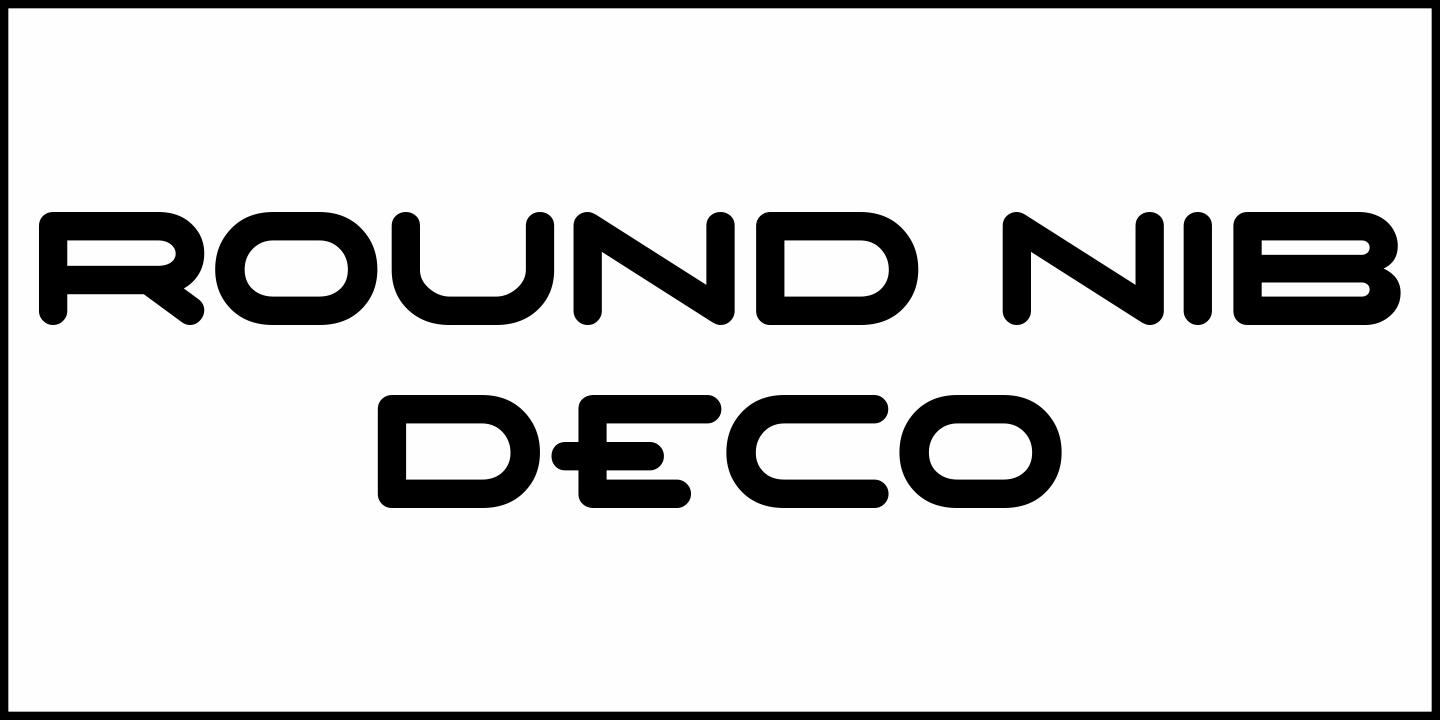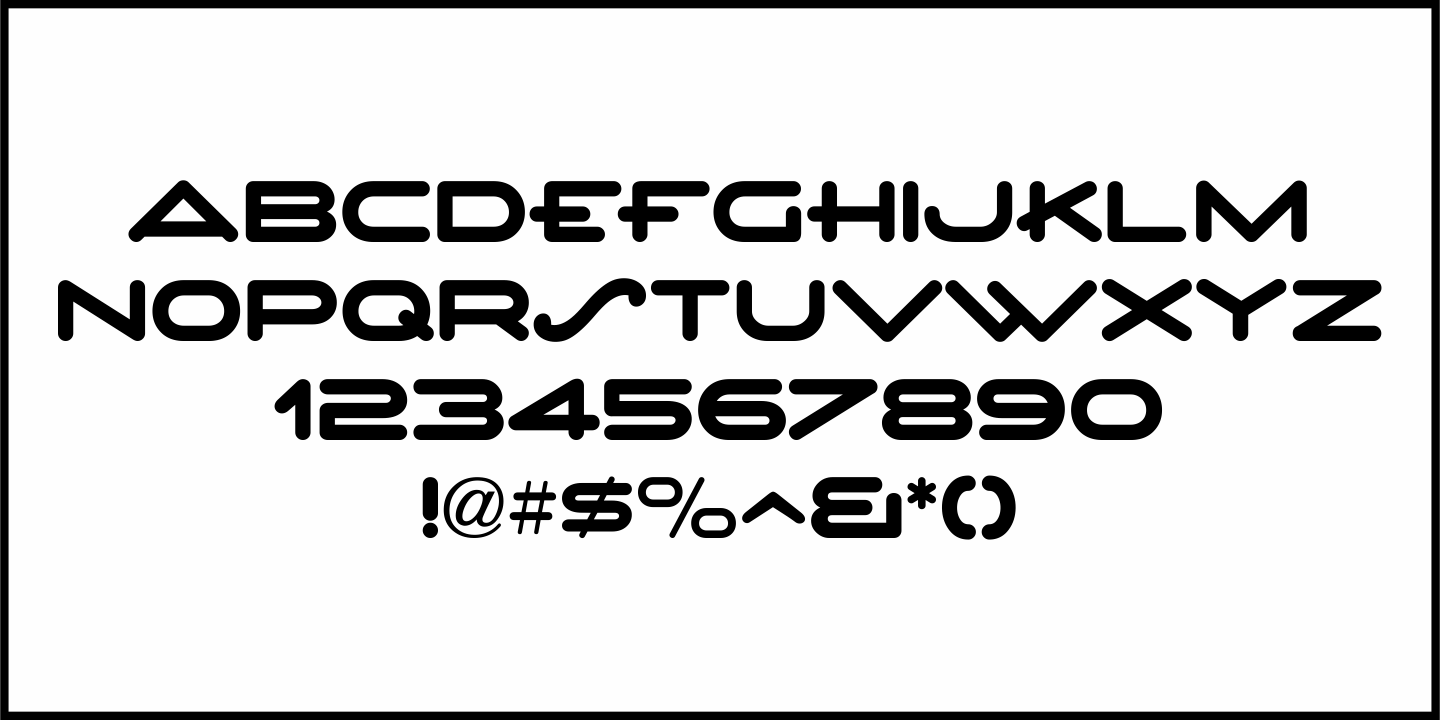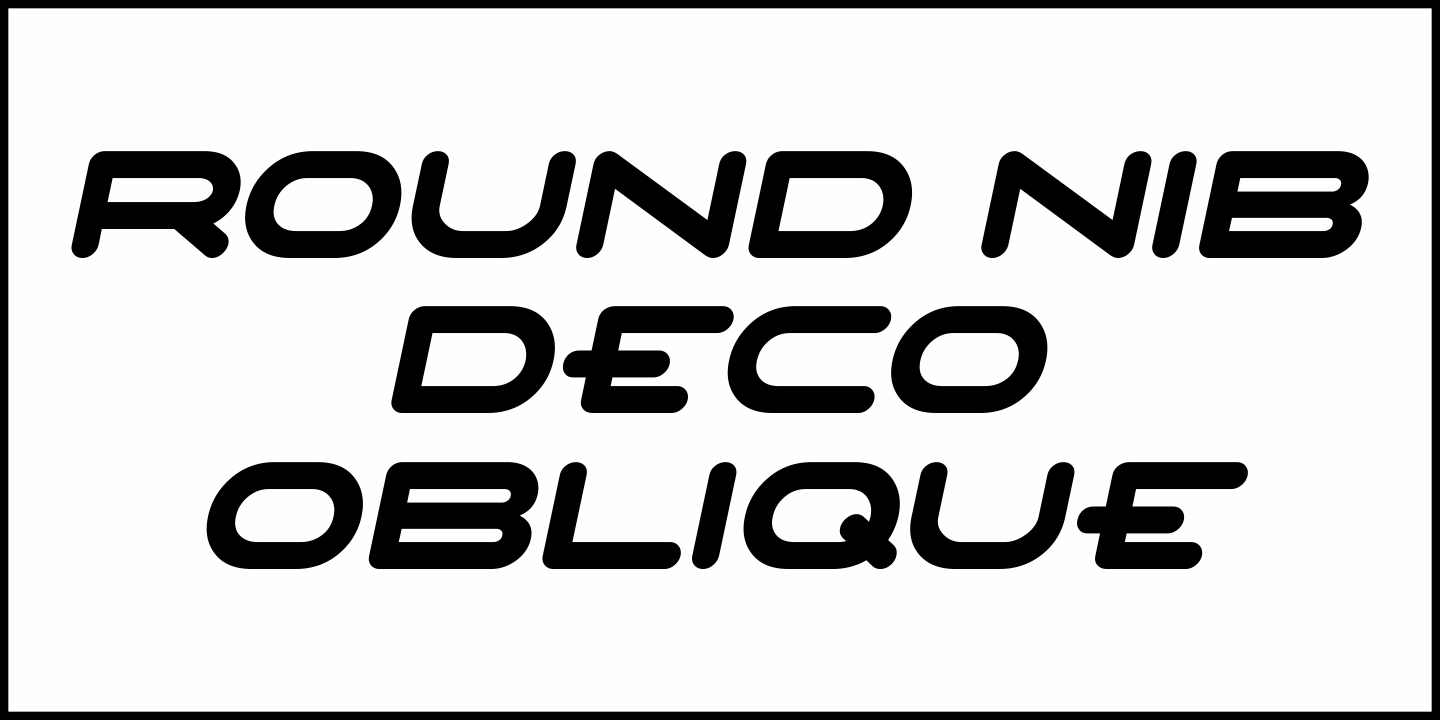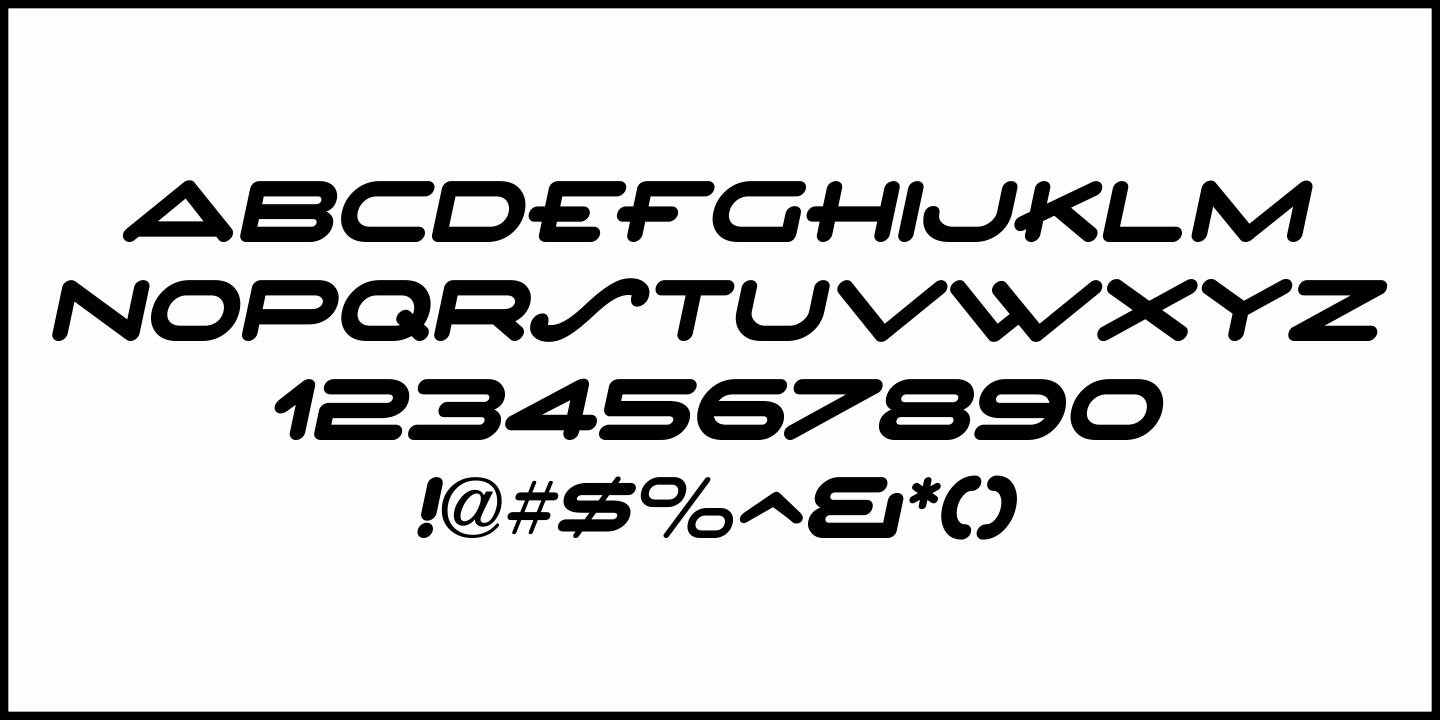
Round Nib Deco
Buy NowGreat type font inspirations can come from any time period and any location in the world.
A Febuary, 1932 issue of an Estonian woman's magazine called 'Eesti Naine' had its name hand lettered using a round nib lettering pen.
This extra-wide Art Deco design is now available as Round Nib Deco JNL, and is available in both regular and oblique versions.